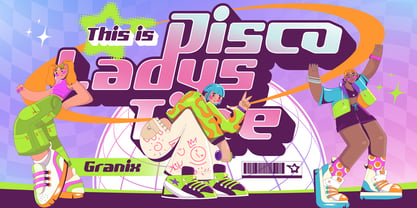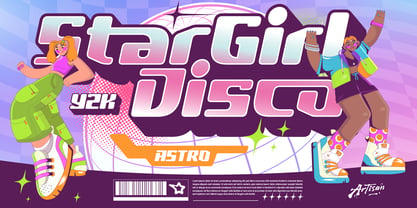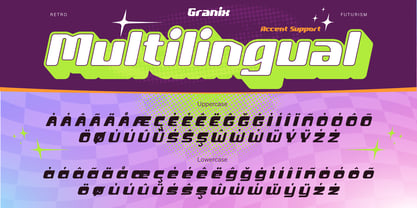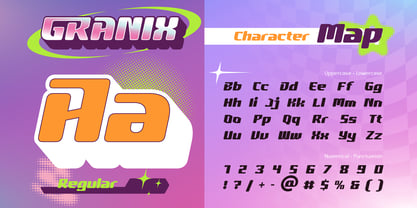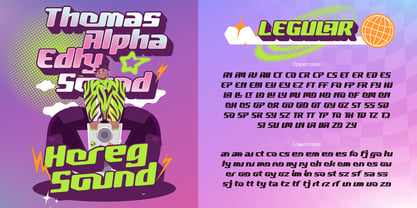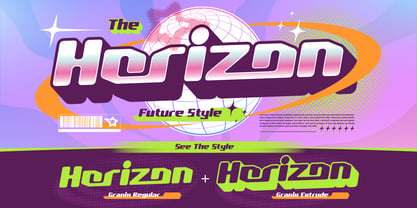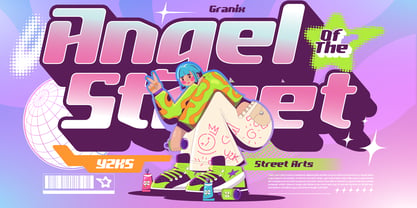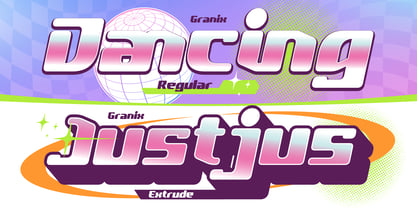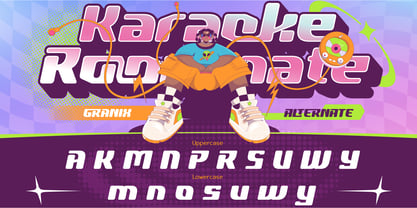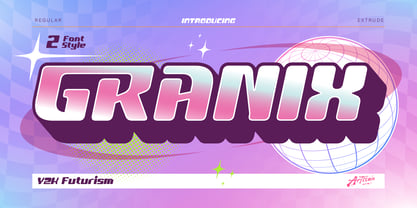
Granix
by Artisan Themes
The Granix Font Family was designed by Meidy Meichico and published by Artisan Themes. Granix contains 2 styles and family package options. More about this family
Granix, a playful and eye-catching display font inspired by retro-future aesthetics, street culture, and early 2000s digital vibes. Designed to stand out, Granix blends chunky letterforms, smooth curves, and vibrant personality into one powerful typeface. With its unique bubble-tech style and dynamic shapes, this font instantly brings energy and nostalgia to your designs—perfect for creatives who want something loud, fun, and unforgettable. Granix comes with 2 font styles: Regular – Clean, bold, and highly readable Extrude – A layered 3D-style version for extra depth and impact Perfect For: Streetwear & fashion branding,Music covers (pop, hip-hop, electronic, hyperpop), Posters & event flyers, Social media graphics & Instagram posts, Gaming & tech visuals, Creative projects with Gen Z / Y2K vibes Features: A - Z set (Uppercase & Lowercase), Number, Punctuation, Alternates, Ligatures, Multilingual
Designers: Meidy Meichico
Foundry: Artisan Themes